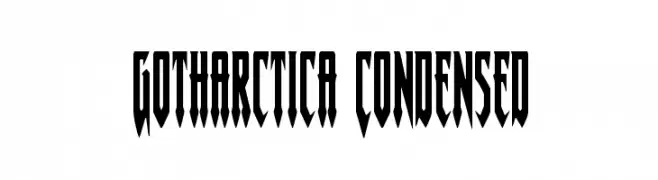
A decorative and gothic font with sharp angles and intricate embellishments.
A bold, gothic-inspired font with sharp, angular edges and dramatic flourishes.
A gothic-style font with sharp serifs and high contrast, perfect for eerie designs.
A bold, edgy font with a hand-drawn, gothic-inspired design.
A bold, gothic-inspired font with sharp, angular edges and intricate details.
A bold, distressed gothic-style font with a dramatic and textured appearance.
A bold, gothic-inspired font with sharp, angular edges and intricate details.
A bold, ornate blackletter font with intricate details and a gothic style.
A decorative Blackletter font with intricate, gothic-inspired details.
A bold, gothic blackletter font with sharp, angular lines and dramatic flourishes.
A gothic, elongated font with sharp serifs and a dramatic presence.